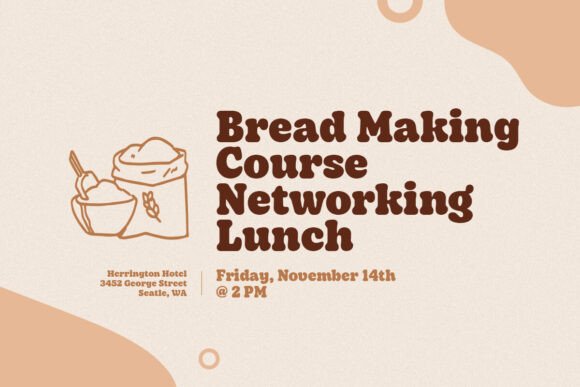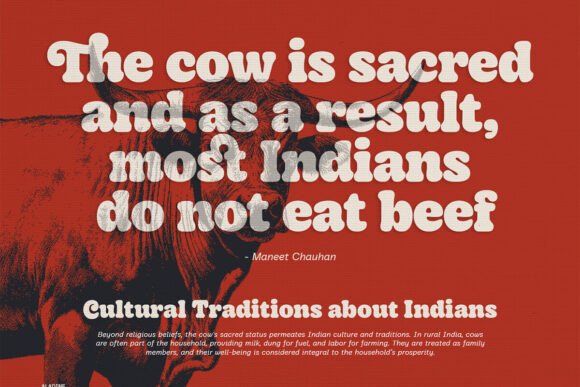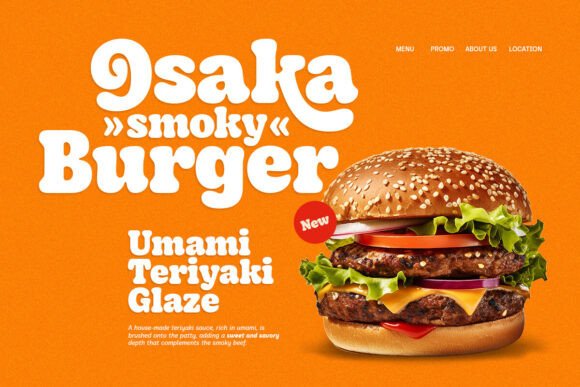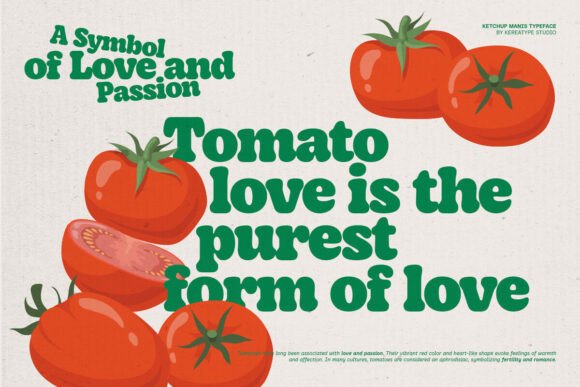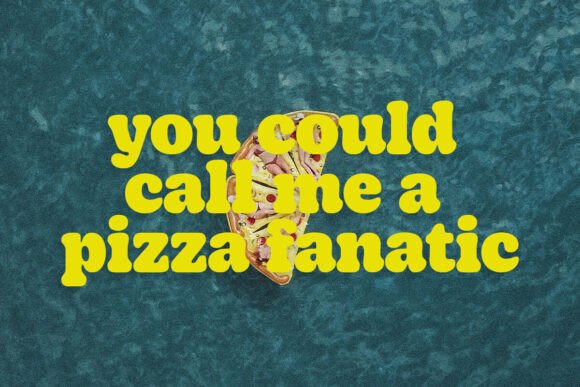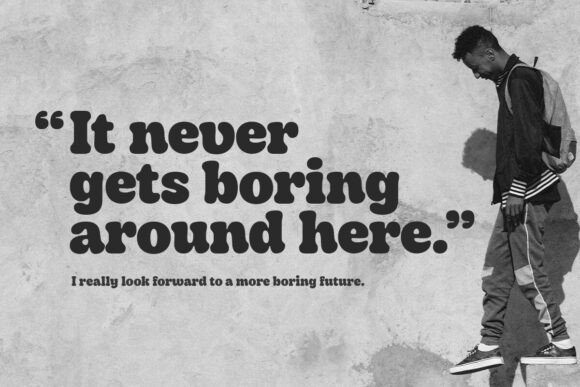
Introduction to Ketchup Manis Font Font
Fonts play a crucial role in design, and the Ketchup Manis Font font is a typeface that brings both character and versatility to any project. Whether you’re working on a branding project, a website, or a print design, the Ketchup Manis Font font offers a unique style that can elevate your work.
Ketchup Manis is a tasty vintage serif typeface packed with bold flavors and juicy curves, designed to evoke the warmth of comfort food and nostalgic branding.
From retro burger joints to artisan packaging, this font delivers sweet charm with every letter Blending 70s-inspired shapes, playful swashes, and soft-rounded terminals, Ketchup Manis captures the quirky soul of old-school grocery labels and fast food typography.
Key Features of Ketchup Manis Font Font
Why Choose Ketchup Manis Font Font?
The Ketchup Manis Font font is more than just a typeface – it’s a design tool that helps you communicate your message with style and clarity. Its unique character set and versatile design make it suitable for a wide range of applications, from elegant invitations to bold headlines.
With its carefully crafted letterforms and balanced proportions, the Ketchup Manis Font font ensures readability and visual appeal across all mediums.
What makes Ketchup Manis Font font special?
The Ketchup Manis Font font stands out with its unique design, exceptional readability, and versatility across various design applications.